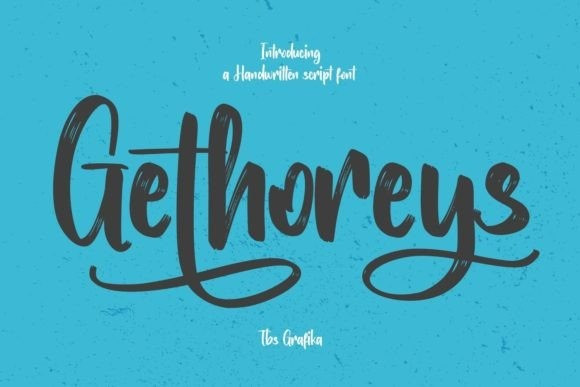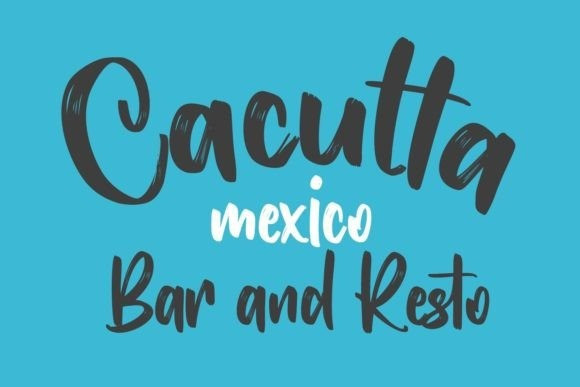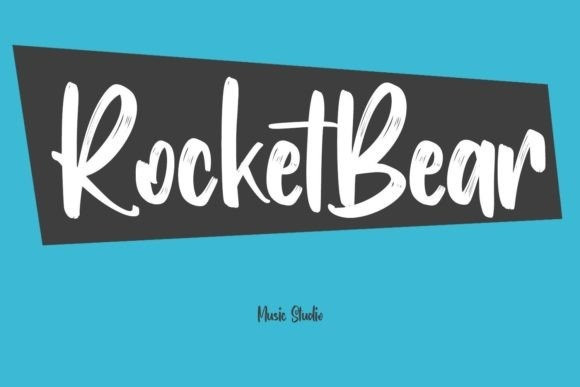
Gethoreys Font
Gethoreys is a fancy handwritten brush font. With bold brush stroke, fun character with a bit of ligatures and stylistic alternates. To give you an extra creative work. Gethoreys font support multilingual more than 100+ language. This font is good for logo design, Social media, Movie Titles, Books Titles, a short text even a long text letter and good for your secondary text font with sans or serif. Make a stunning work with Gethoreys font.